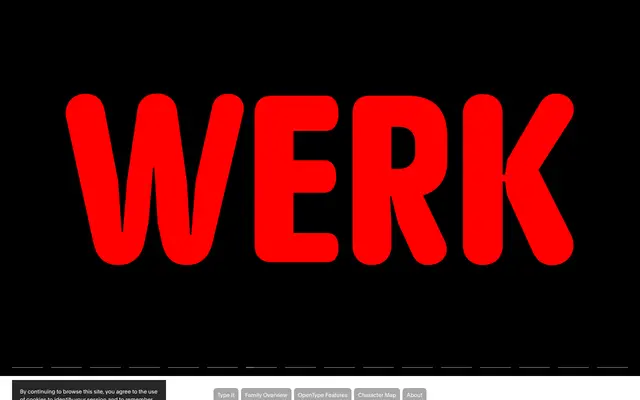
Abstrakt
Optimo · François Rappo
A geometric sans by François Rappo built from 1930s Swiss lettering, with a standard width and a Narrow companion across four weights and italics.
A geometric sans-serif by François Rappo that synthesises a 1930s Swiss lettering style into a full family. Each character is a slight abstraction of conventional letter shapes, drawn with compass-and-ruler logic that recalls Swiss architecture, graphic and industrial design from the period. Available in Light, Regular, Bold and Black with matching italics, plus a Narrow width with the same range, giving identity systems and editorial work a controlled set of geometric voices.
Optimo describes Abstrakt as drawing on early 20th century geometric sans-serif lettering built with compass and ruler, anchored in modernist ideas, with shapes that foreshadow the pop aesthetic of the early computer age.